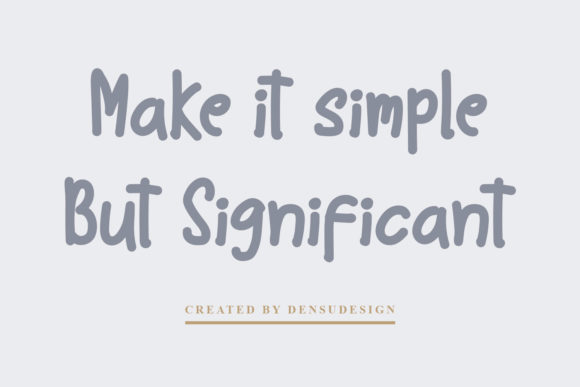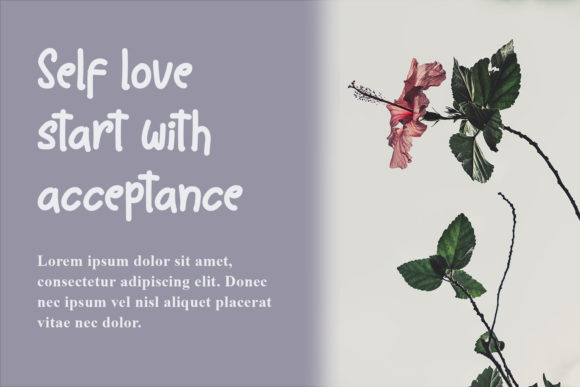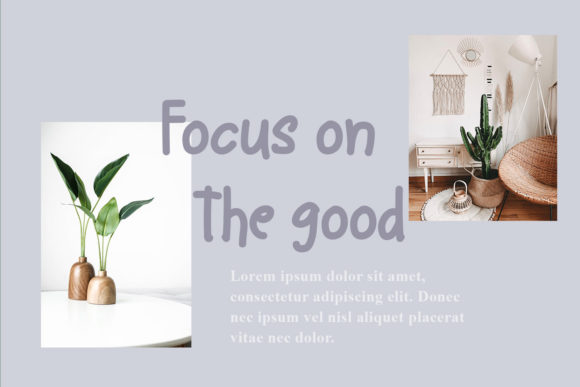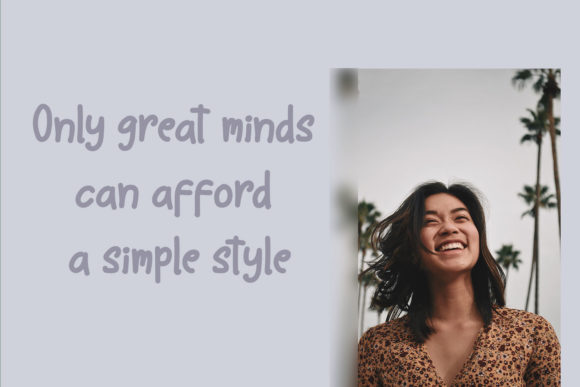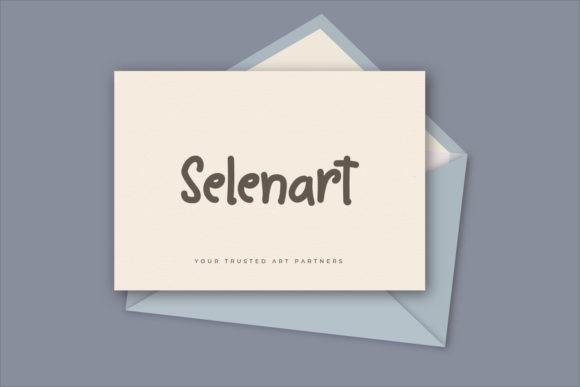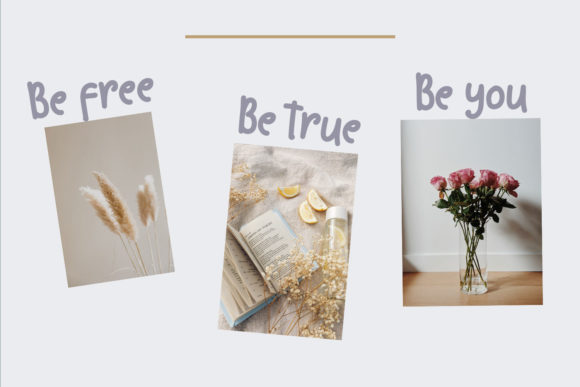
Introducing Boorney Font: The Playful Display Font for Crafters and Designers
Are you a crafter, designer, or DIY enthusiast looking for a fun and playful font to elevate your projects? Look no further than Boorney Font! This delightful display font is perfect for a wide range of creative endeavors, from crafting and SVG designs to branding, logos, stickers, and Cricut projects.
What is Boorney Font?
Boorney Font is a carefully crafted display font designed to add a touch of playfulness and whimsy to your designs. Its unique and eye-catching letterforms make it an excellent choice for projects that require a bit of personality and flair. Whether you’re creating handmade cards, crafting custom stickers, or designing logos for your business, Boorney Font is the perfect companion.
Key Features of Boorney Font
- Playful and Whimsical: Boorney Font boasts a fun and carefree design that’s sure to bring a smile to your face. Its playful letterforms are perfect for adding a personal touch to your projects.
- Versatile: This font is incredibly versatile and can be used for a wide range of projects, from crafting and DIY to branding and logo design.
- Easy to Read: Despite its playful nature, Boorney Font remains easy to read, making it an excellent choice for titles, headings, and short paragraphs.
- Scalable: Boorney Font is designed to look great at any size, whether you’re creating a small sticker or a large billboard.
Perfect for Crafters and Makers
If you’re a crafter or maker, you know how important it is to have a font that can keep up with your creative vision. Boorney Font is perfect for:
- Cricut Projects: Boorney Font cuts beautifully with Cricut machines, making it an excellent choice for custom signs, iron-on designs, and more.
- SVG Designs: This font is optimized for SVG files, allowing you to create stunning vector graphics with ease.
- Handmade Cards and Gifts: Add a personal touch to your handmade cards and gifts with Boorney Font’s playful and whimsical letterforms.
- Stickers and Labels: Create custom stickers and labels with Boorney Font that are sure to stand out.
Perfect for Designers and Entrepreneurs
If you’re a designer or entrepreneur, you know how important it is to have a font that can help your brand stand out. Boorney Font is perfect for:
- Branding and Logos: Create a unique and memorable brand identity with Boorney Font’s playful and eye-catching letterforms.
- Social Media Graphics: Use Boorney Font to create stunning social media graphics that are sure to grab attention.
- Packaging and Labeling: Add a touch of personality to your packaging and labeling with Boorney Font.
In conclusion, Boorney Font is a versatile and playful display font that’s perfect for crafters, designers, and entrepreneurs alike. Its unique and eye-catching letterforms make it an excellent choice for a wide range of creative projects, from crafting and DIY to branding and logo design. So why wait? Download Boorney Font today and start adding a touch of playfulness and whimsy to your designs!